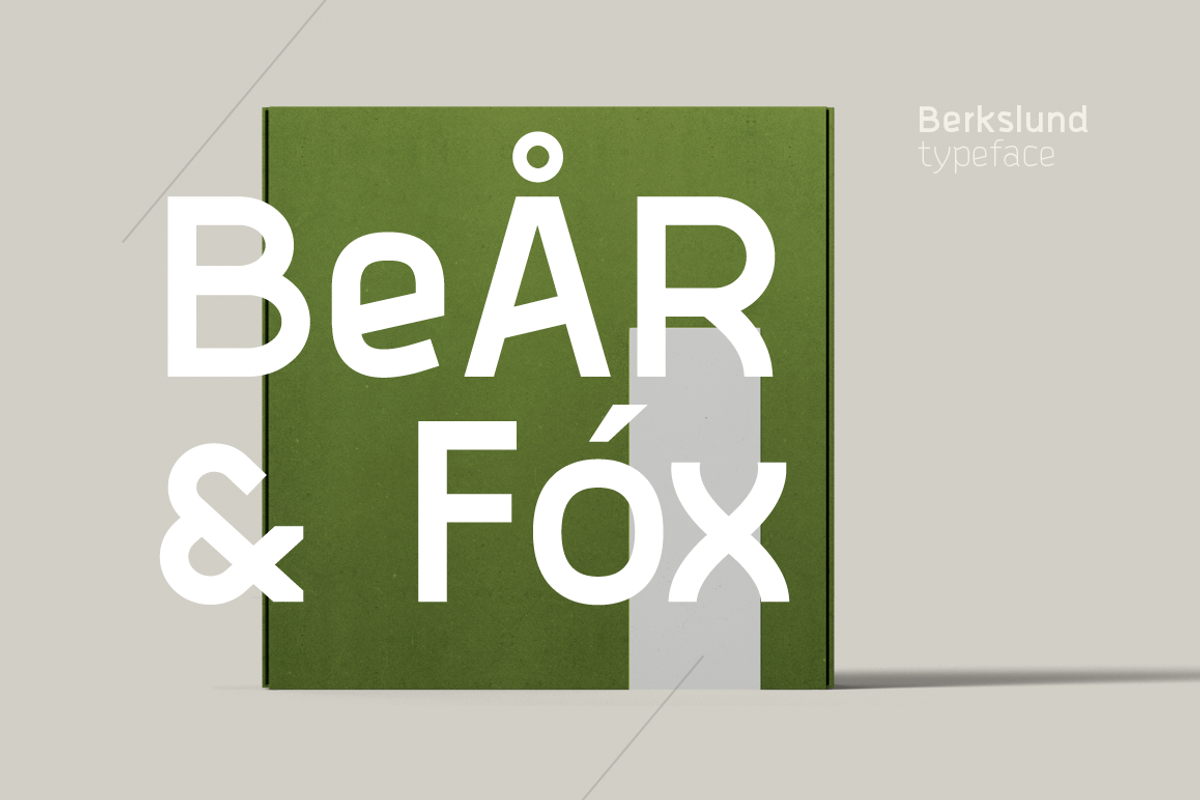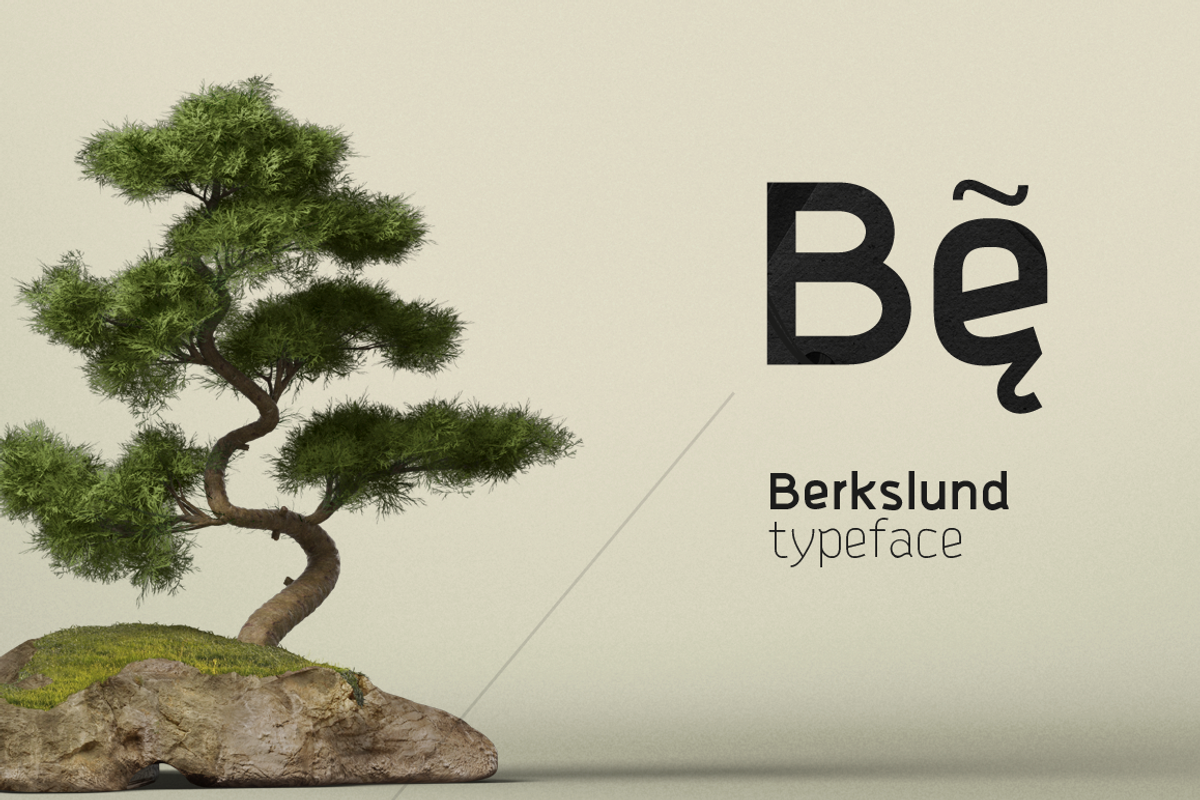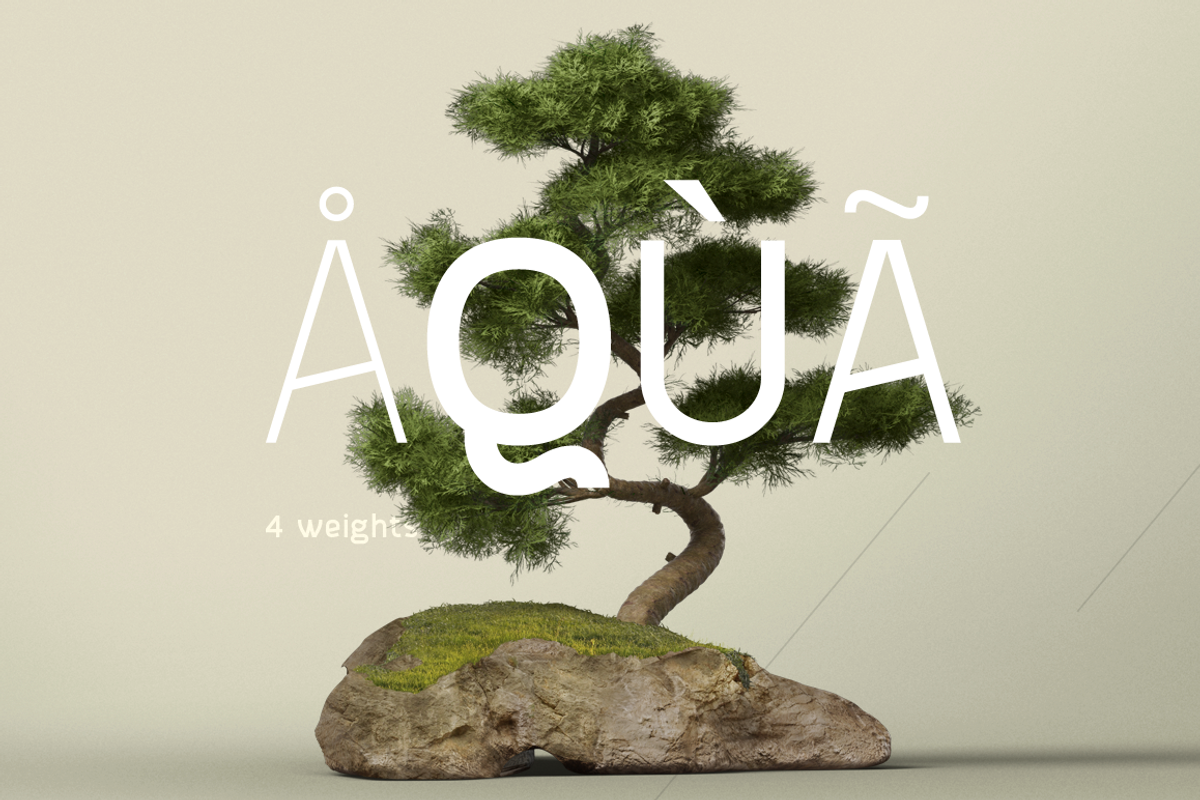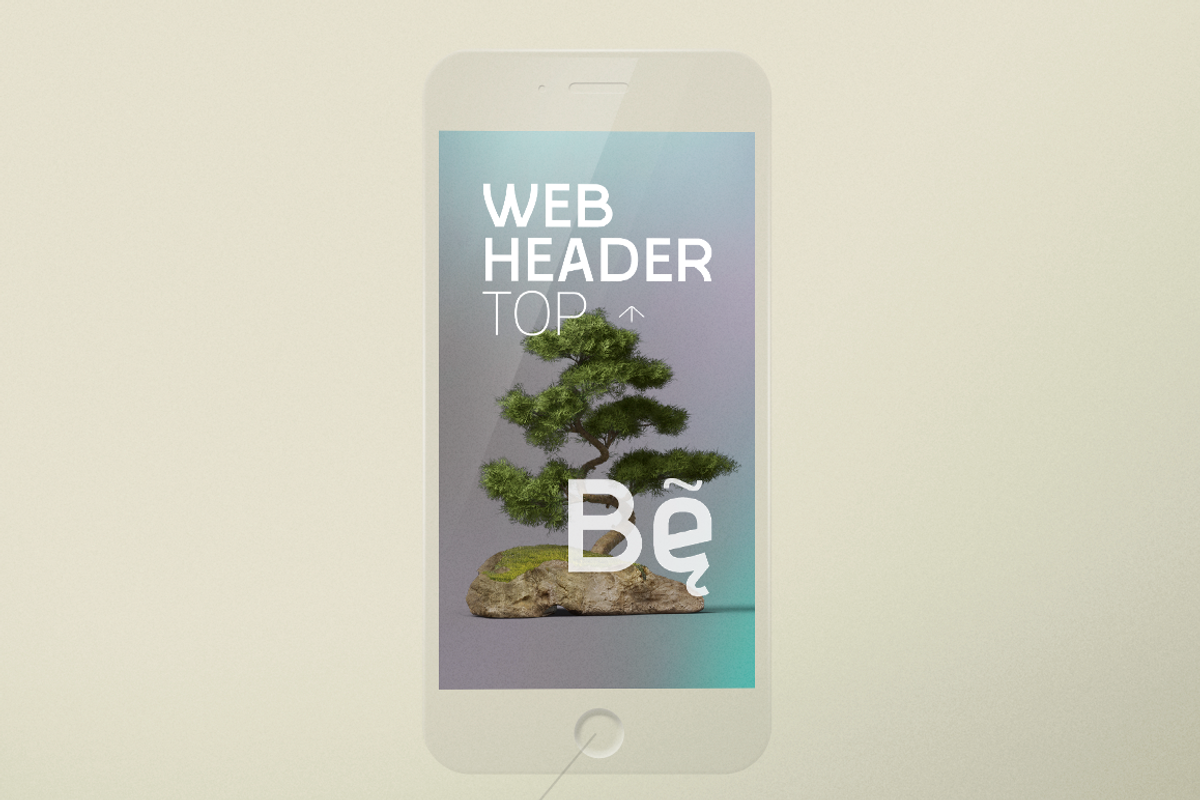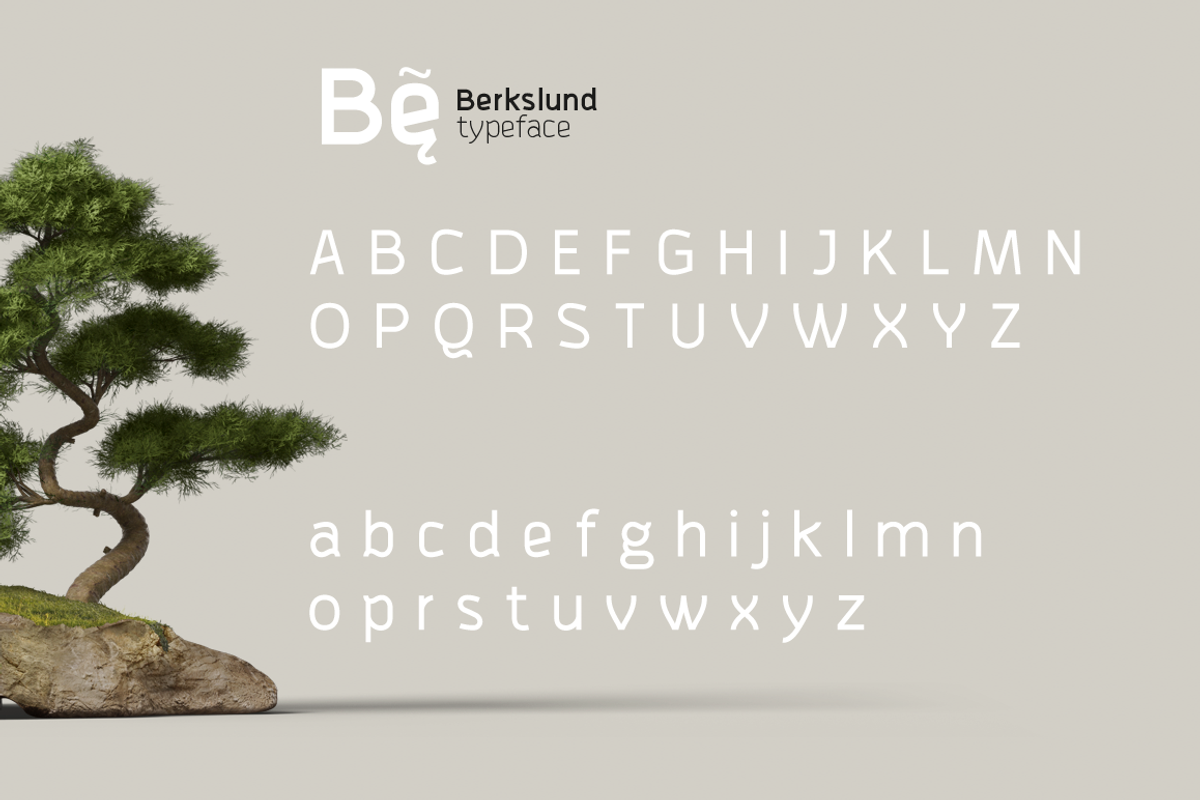
Berkslund Typeface
Berkslund Typeface by Newface is a font selected for branding, posters, packaging, typography.
- Berkslund has 1500 kerning pairs and includes Thin, Light, Regular and Bold weight glyphs.
- Language support: Contains full set of Latin alphabet, including diacritical marks for European languages and Cyrillic alphabets.
Why Berkslund Typeface is worth a look
Berkslund Typeface by Newface fits naturally into Branding, posters, packaging, typography.